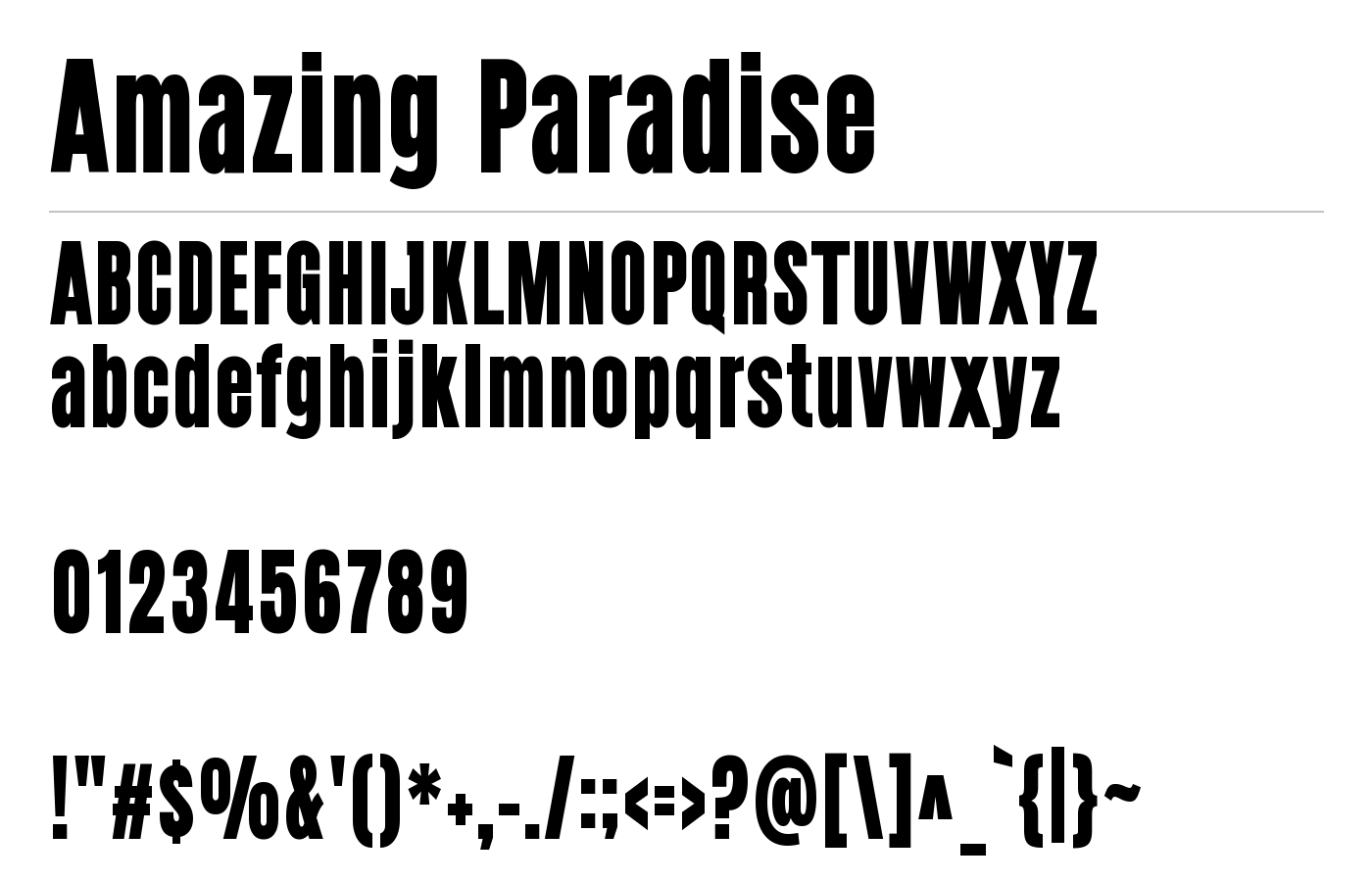
Amazing Paradise is a bold, condensed sans serif font with a strong, modern presence and high stroke contrast that makes it stand out. Its tall, narrow letterforms and clean lines give it a commanding and impactful look, ideal for headlines, posters, and branding that needs to convey confidence and energy.
Amazing Paradise Font
About Amazing Paradise Font
| Font family | Amazing Paradise Font |
| Designer | Usman Albaehaqi |